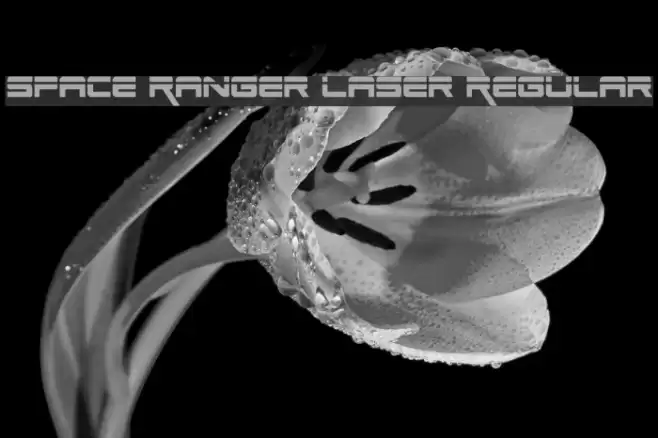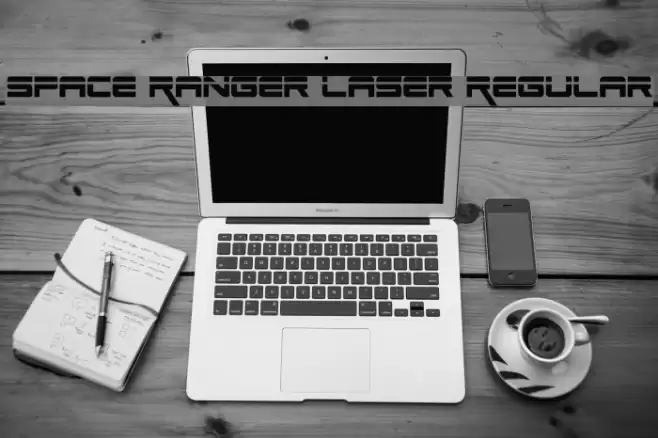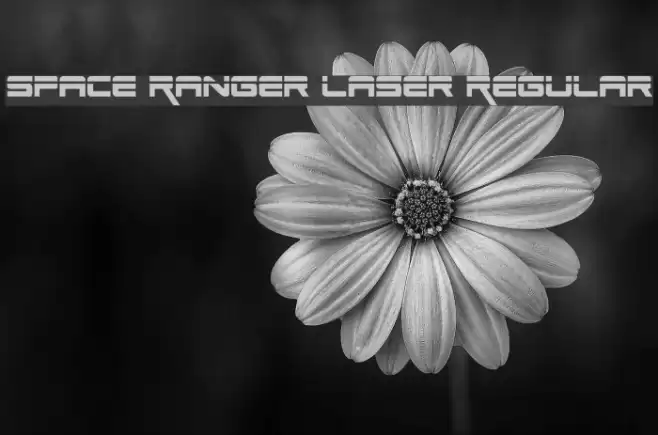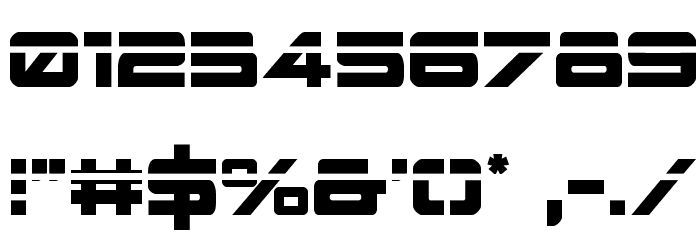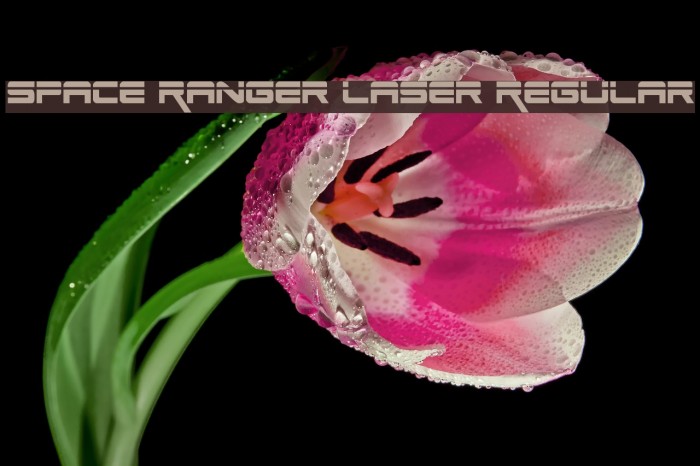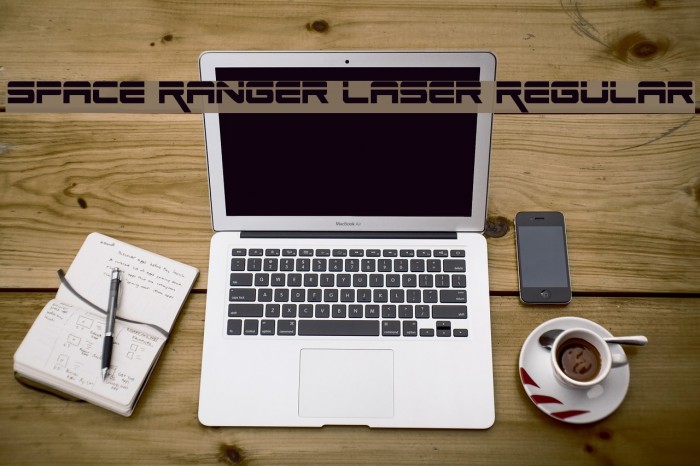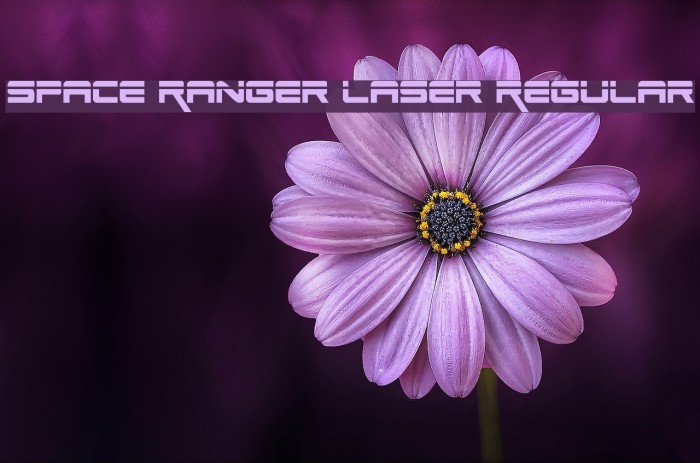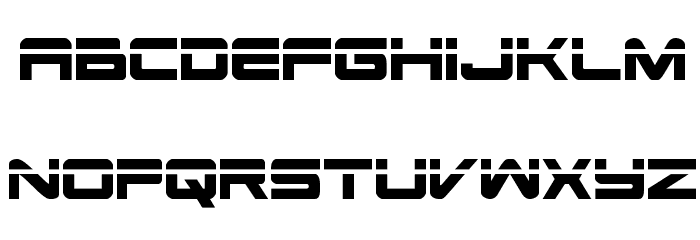
Space Ranger Laser Regular Font
Space Ranger Laser Regular Description
This font features a futuristic and angular design, characterized by sharp edges and geometric shapes. The uppercase letters are bold and striking, with a consistent height and width that gives a uniform appearance. The lowercase letters maintain the same angular style, ensuring a cohesive look across all text. Numbers and special characters are designed to match the overall aesthetic, making them perfect for sci-fi or tech-themed projects. The font's unique style is both modern and eye-catching, ideal for creating a strong visual impact.
A futuristic, angular font with bold geometric shapes from Uncategorized fonts.
- Proposed Projects: Ideal for sci-fi movie posters, tech branding, video game titles, and futuristic-themed designs.
- Overall Style: Futuristic, Modern